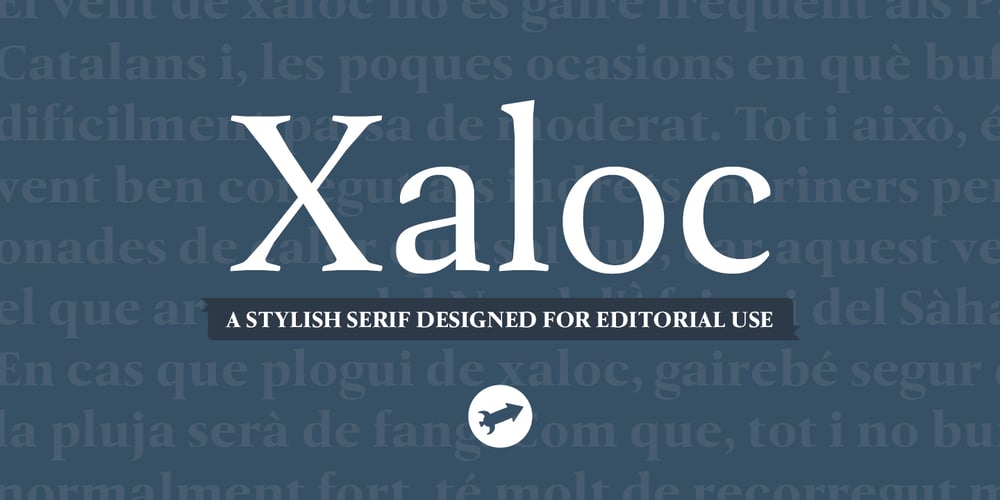
Xaloc
Xaloc font
Xaloc Font Family was designed by Ricardo Santos and published by Vanarchiv. Xaloc contains 24 styles and family package options. Xaloc was designed for editorial use in books, magazines and newspapers. This typeface family contains different font versions for different optical sizes; Caption, Text, Subhead and Display, all of them with different x-height proportions and contrast. Its serifs are asymmetrical and its letterforms have geometric modulated strokes that emulate the calligraphic variations. Its design approach enhances text flow and continuous reading. Xaloc was based on Ricado Santos’ Tramuntana, which has the same skeleton, proportions and serifs with a more mechanical design. Xaloc is the Catalonian name from the Mediterranean wind that comes from the Sahara and reaches hurricane speeds in North Africa and Southern Europe.